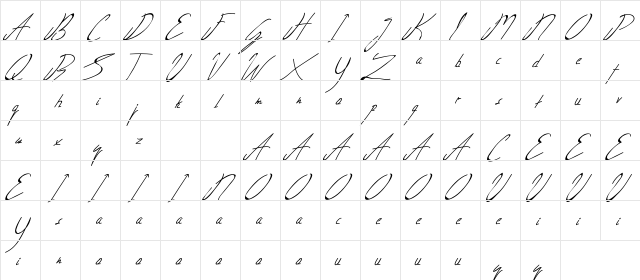
Livingston Demo Signature Regular
| Foundry | Edric Studio |
| Designer | Ega nugraha |
Design Context for Livingston Demo Signature Typeface
Livingston Demo Signature is a composed and adaptable typeface that performs quietly and consistently across a wide range of design contexts.